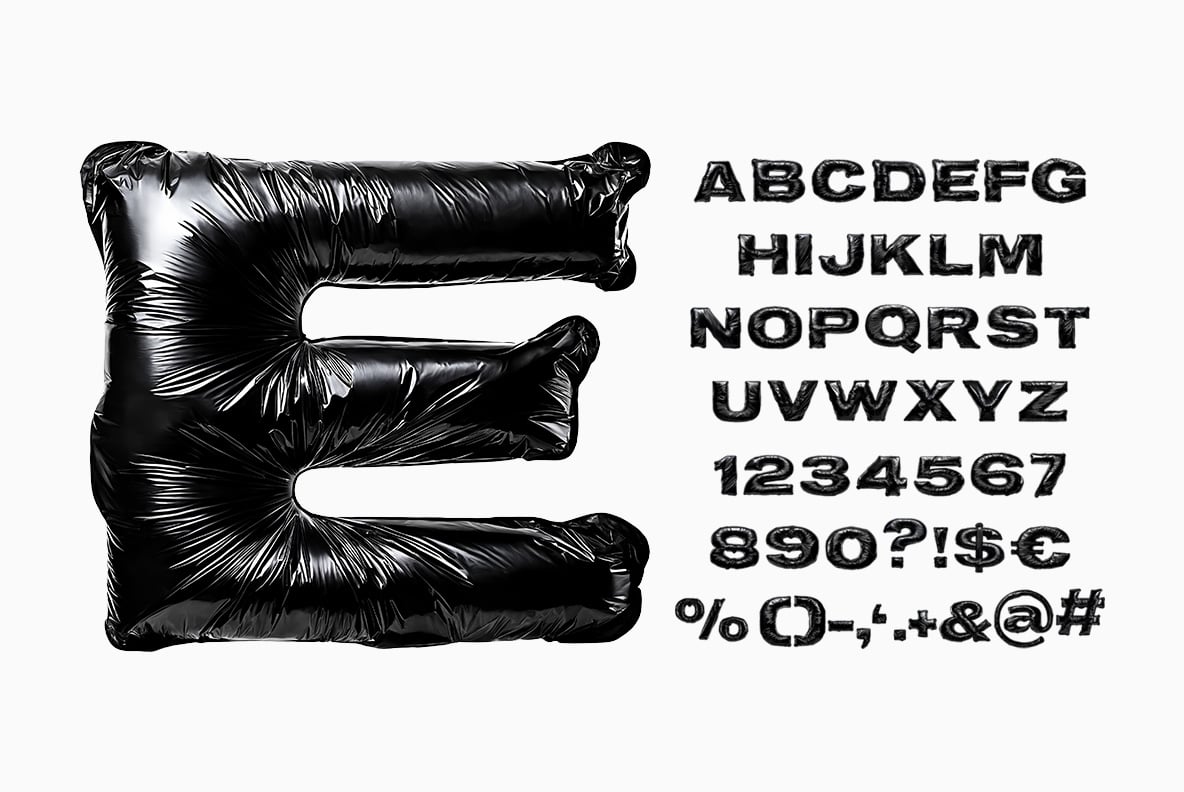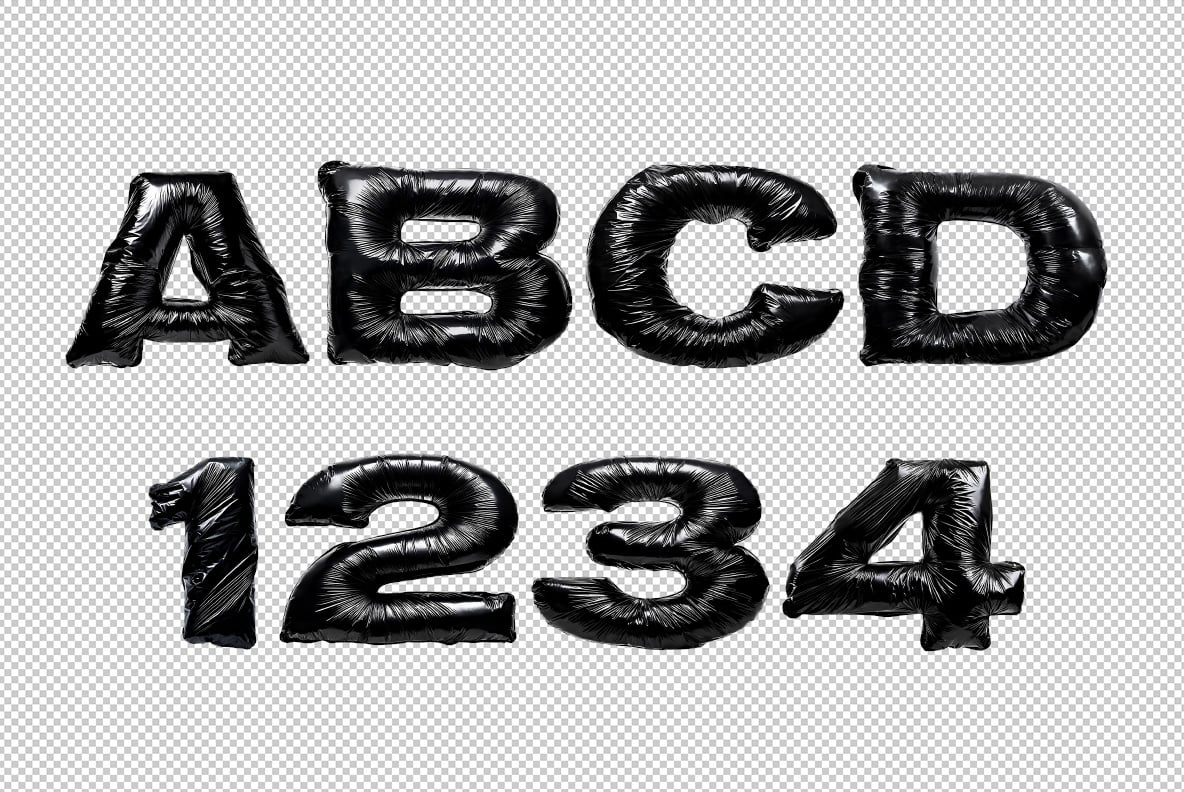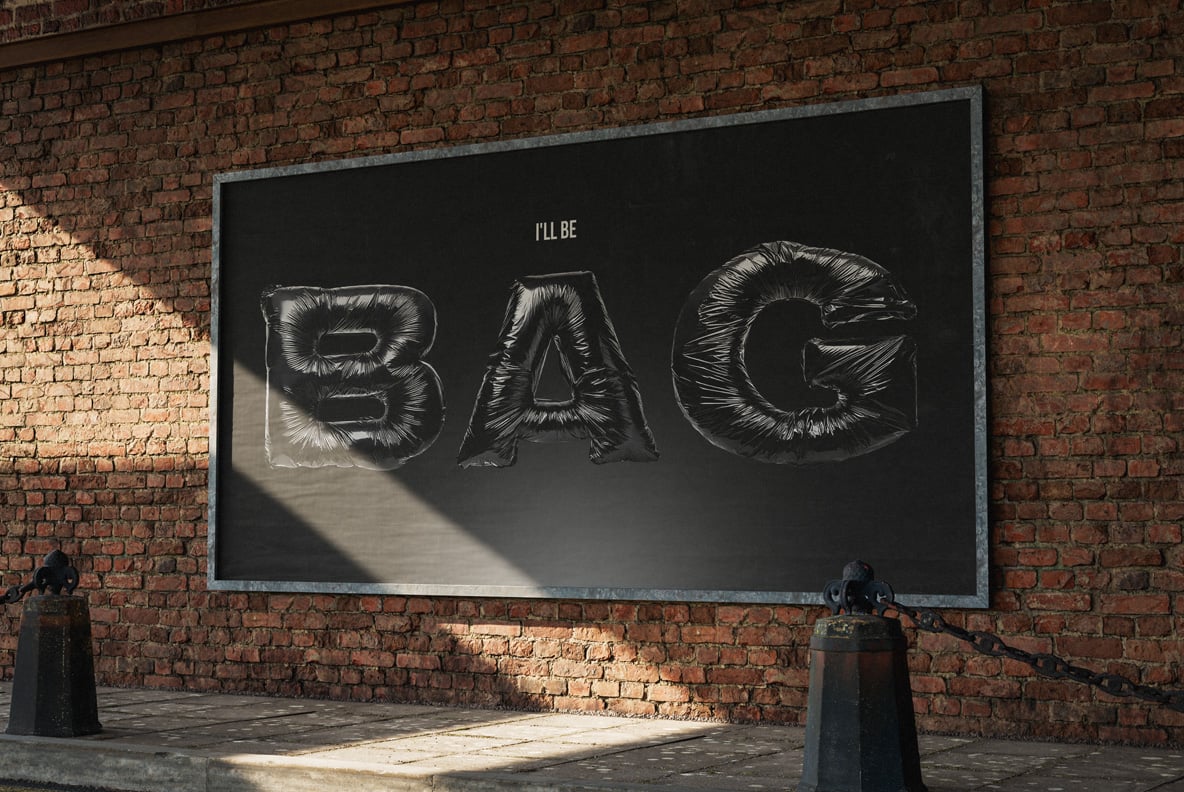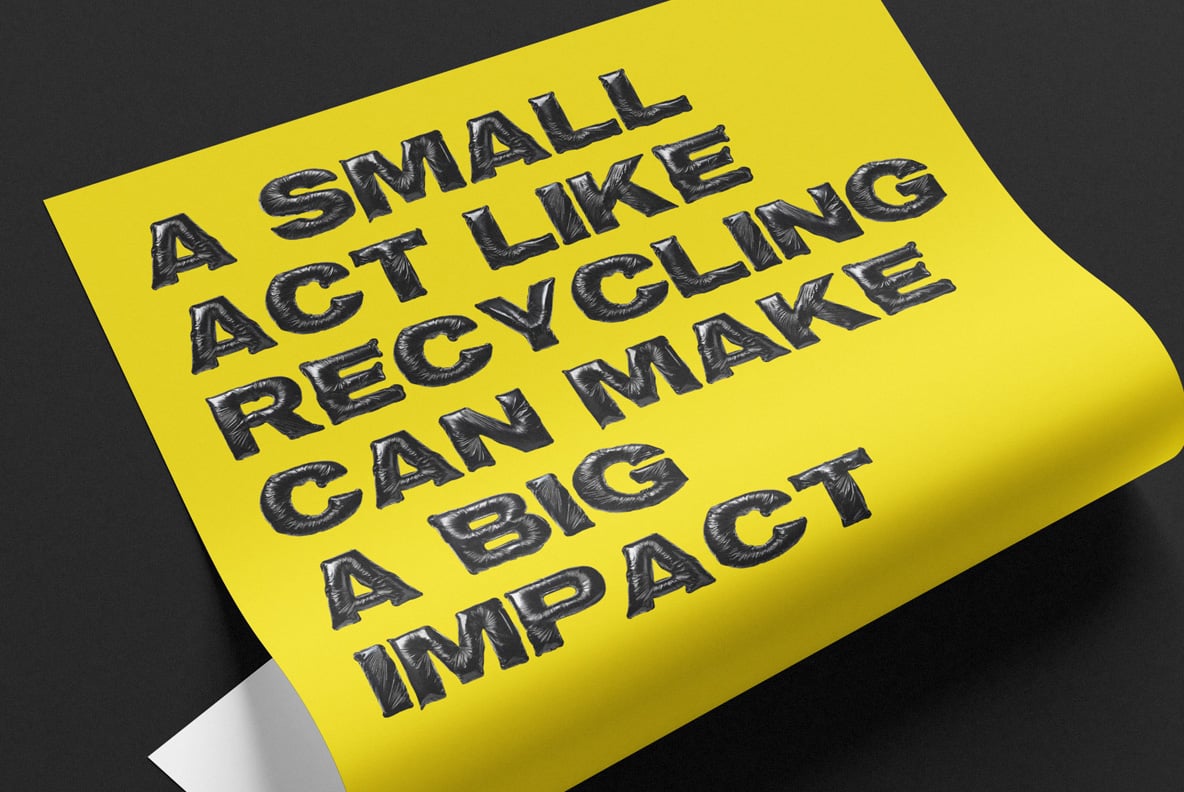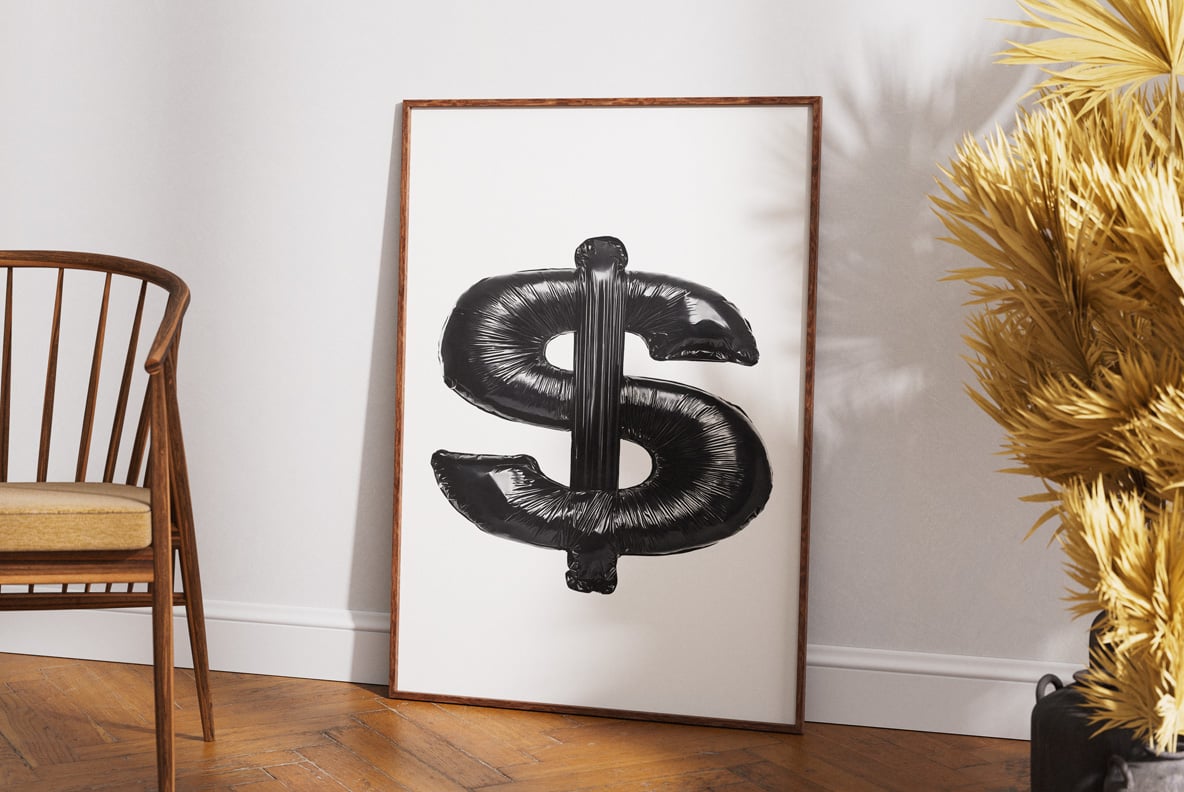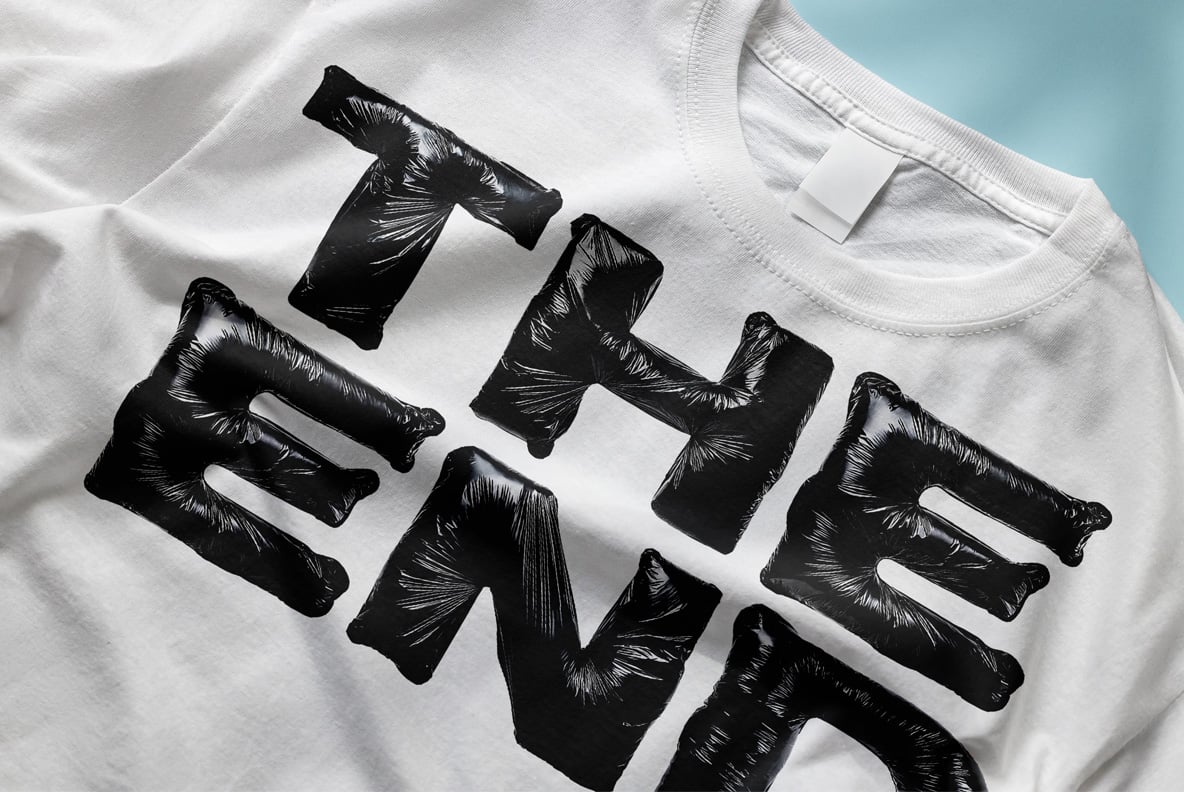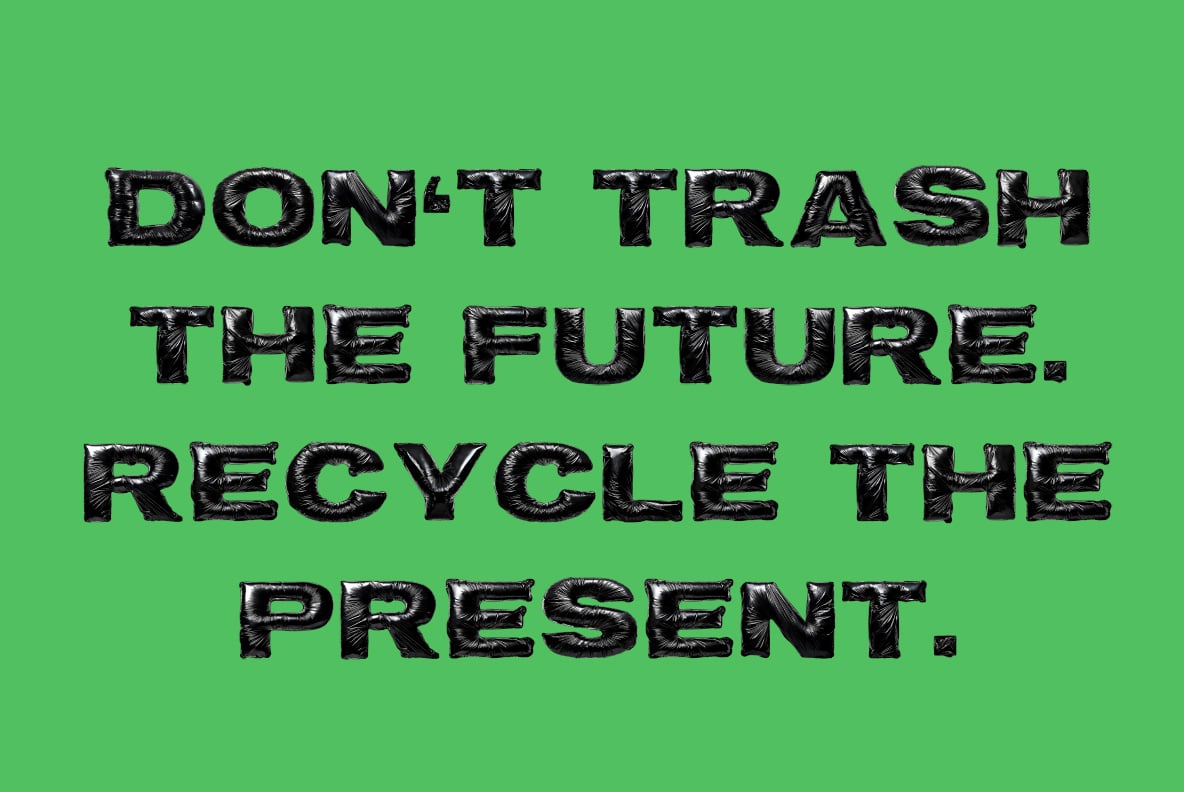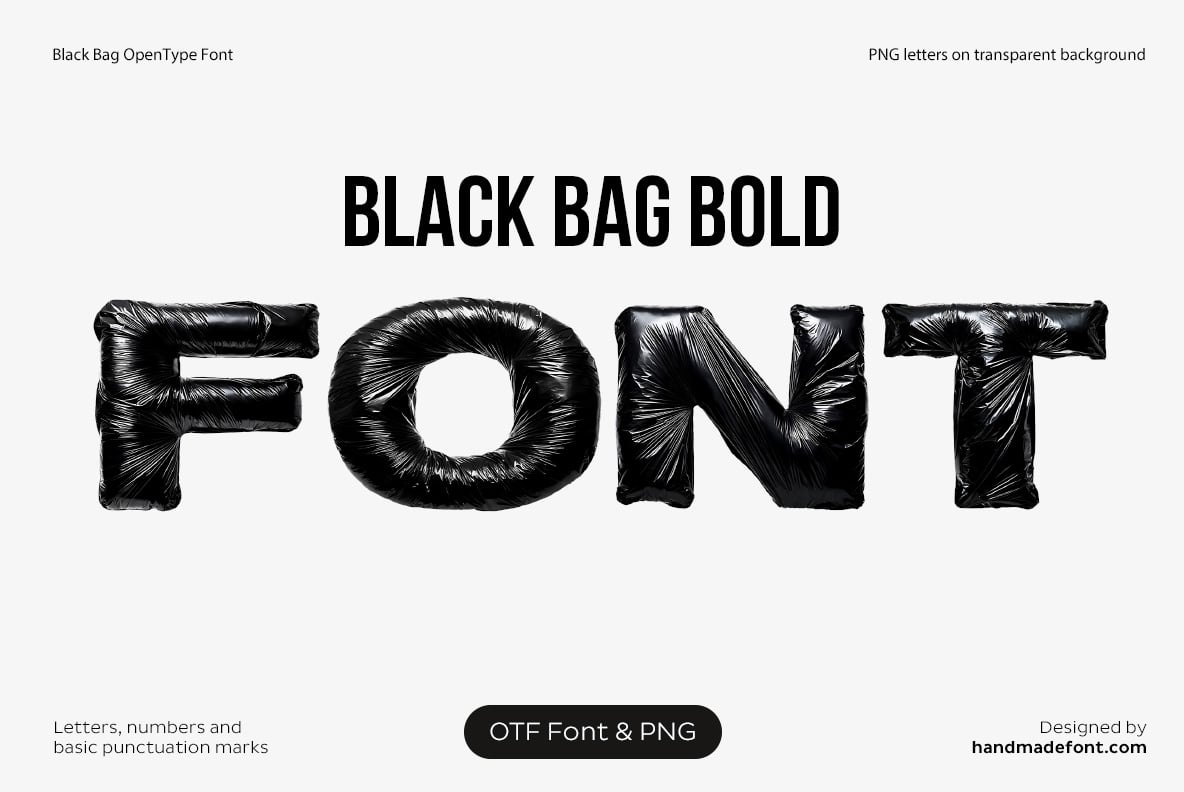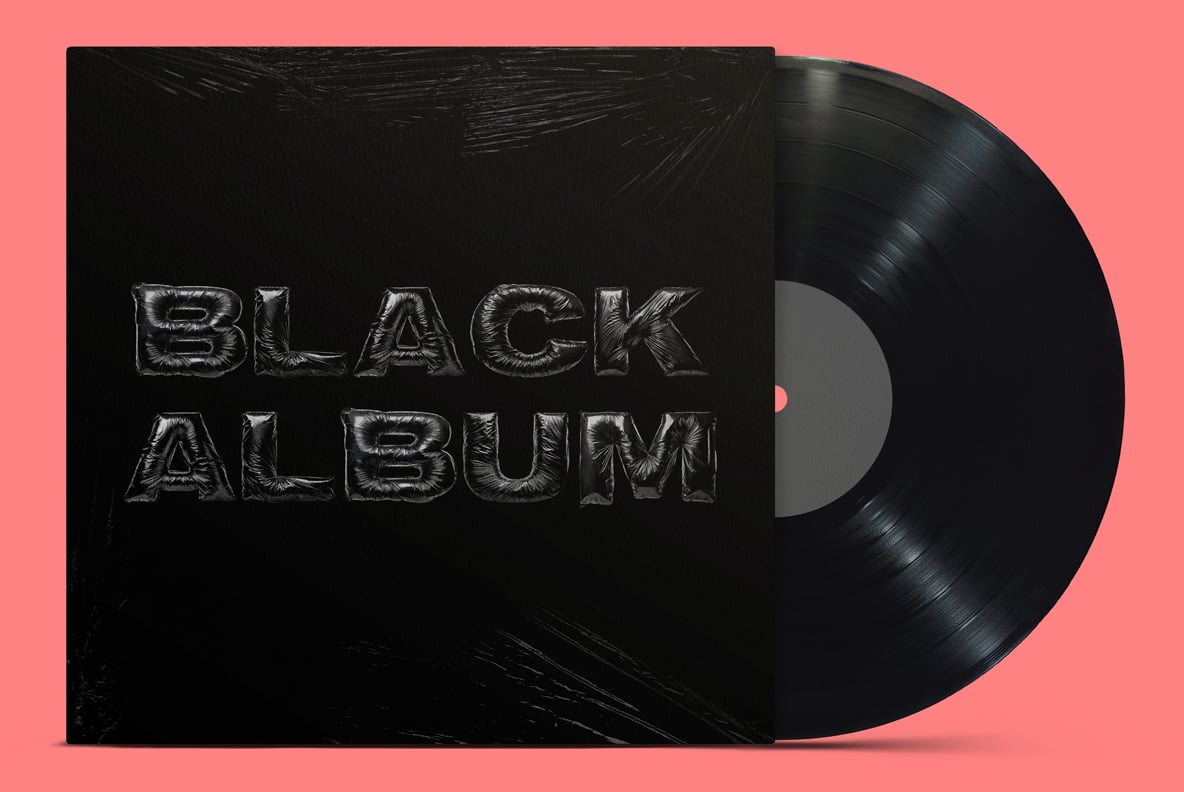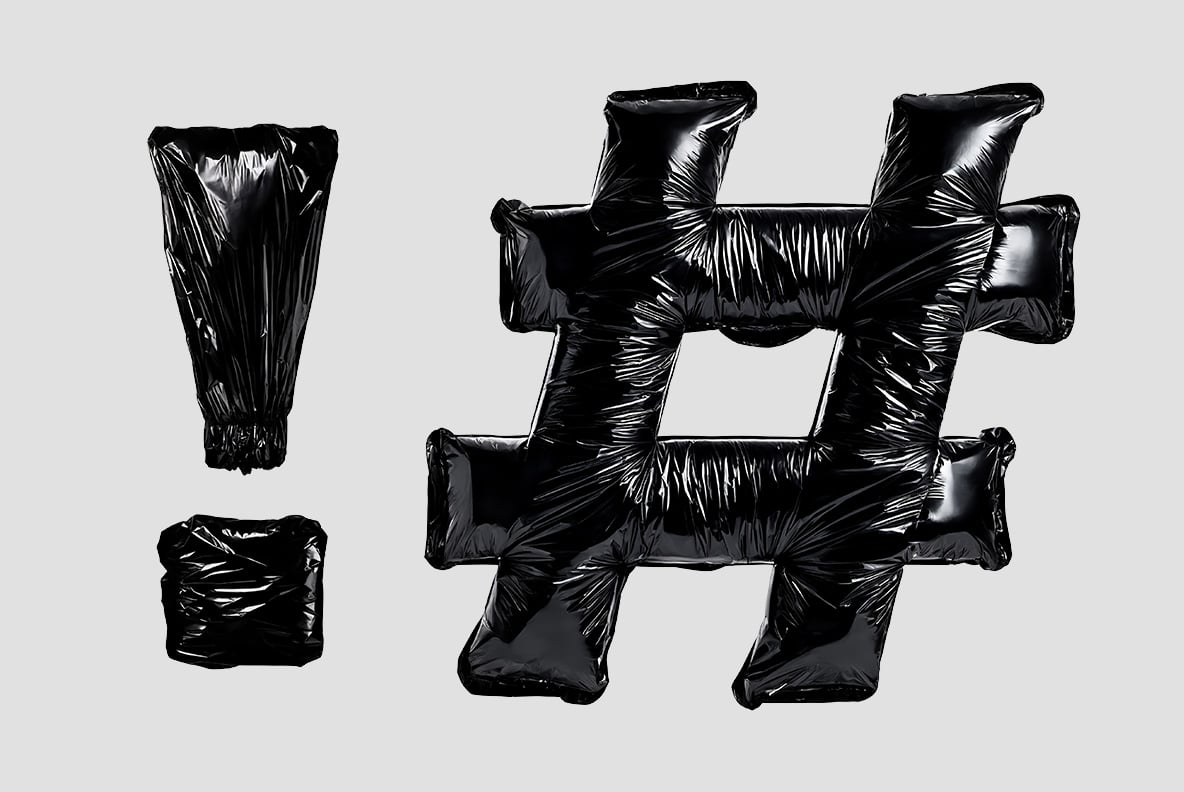
Black Bag Bold Font
Trash turns into typography with **Black Bag Bold Font**, a striking alphabet crafted entirely from black plastic garbage bags. This unique font embodies the texture and shine of recycled materials, blending edginess with eco-conscious creativity. Each letter captures the crumpled, glossy essence of black trash bags, making it perfect for bold, unconventional designs. Whether you're creating gritty posters, edgy branding, or eco-themed campaigns, this font transforms the mundane into a visually compelling statement. Garbage has never looked this good!